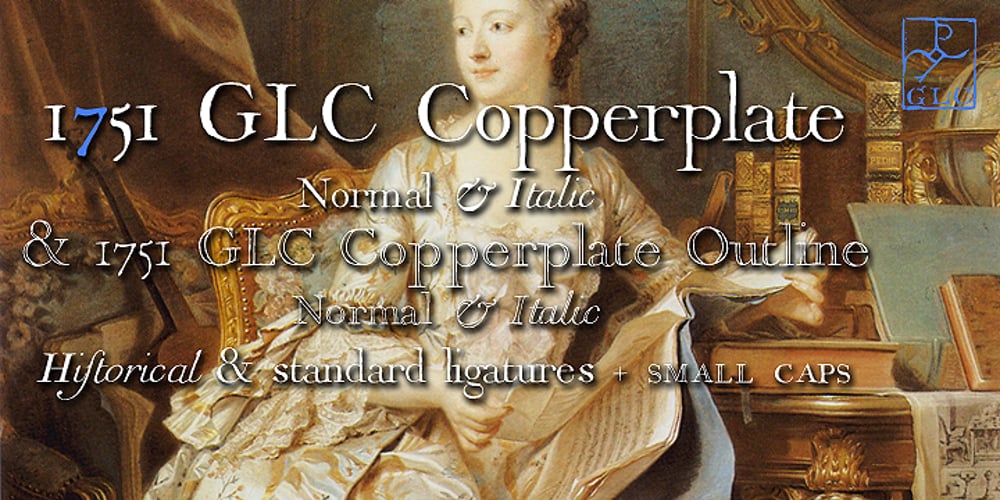
1751 GLC Copperplate Font Family was designed by published by GLC. 1751 GLC Copperplate contains 4 styles and family package options. This family was inspired by an engraved plate from Diderot & Dalembert’s Encyclopedia (publication beginning in 1751), illustrating the chapter devoted to letter engraving techniques. The plate bears two engravers names : “Aubin” (may be one of the four St Aubin brothers ?)and “Benard” ( which name is present below all plates of the Encyclopedia printed in Geneva ). It seems to be a transitional type, but different from Fournier or Grandjean. Small caps are included in fonts for TTF and OTF version, separate files are included in the family sets of the Mac TT version.